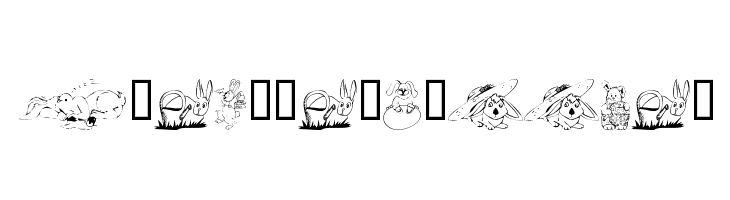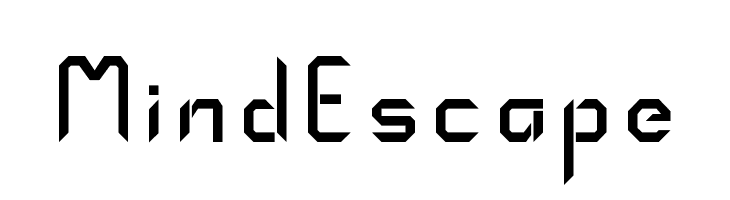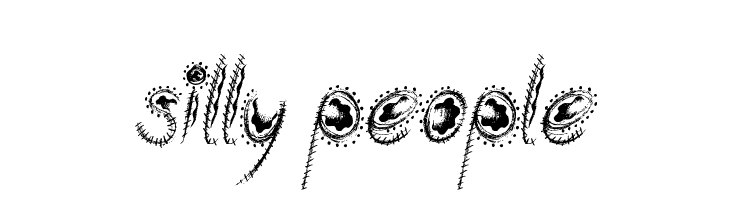
A bold, angular font with a geometric and industrial design.
A bold, dynamic font with a vintage poster style.
A playful, handwritten script font with bold, dynamic characters.
A whimsical decorative font featuring cartoon figures in circular frames.
A playful, hand-drawn font with smooth curves and an organic feel.
A playful, hand-drawn font with a casual and friendly vibe.
Decorative, graphic-heavy font with unique artwork for each character.